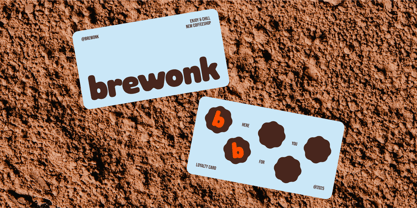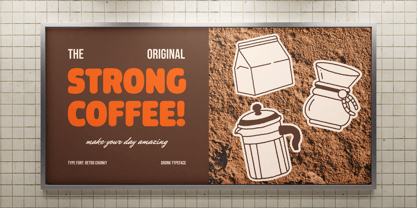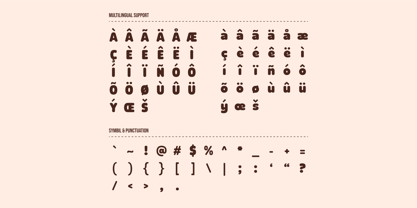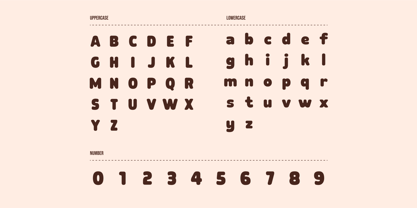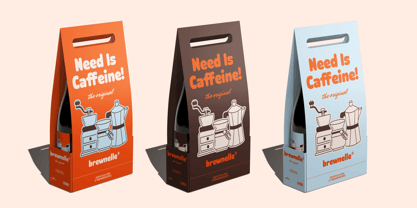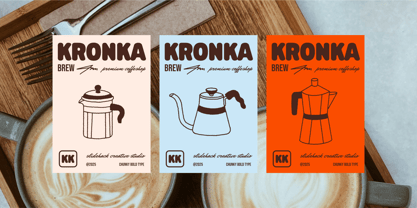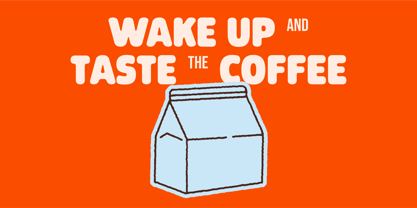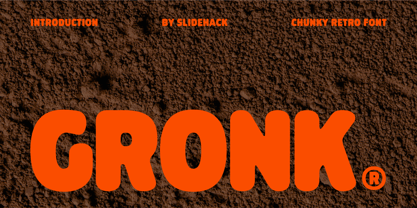
Gronk
The Gronk Font Family was designed by Panca Ahmadi Hasan and published by Slidehack. Gronk contains 1 styles. More about this family
Gronk – Display Font is a bold and chunky retro typeface crafted to deliver maximum impact for your creative projects. With playful curves, thick strokes, and a strong presence, this font adds a fun vintage vibe that instantly grabs attention. Perfect for headlines, posters, branding, packaging, and social media graphics, Gronk helps designers create memorable and eye-catching typography that stands out in any design.